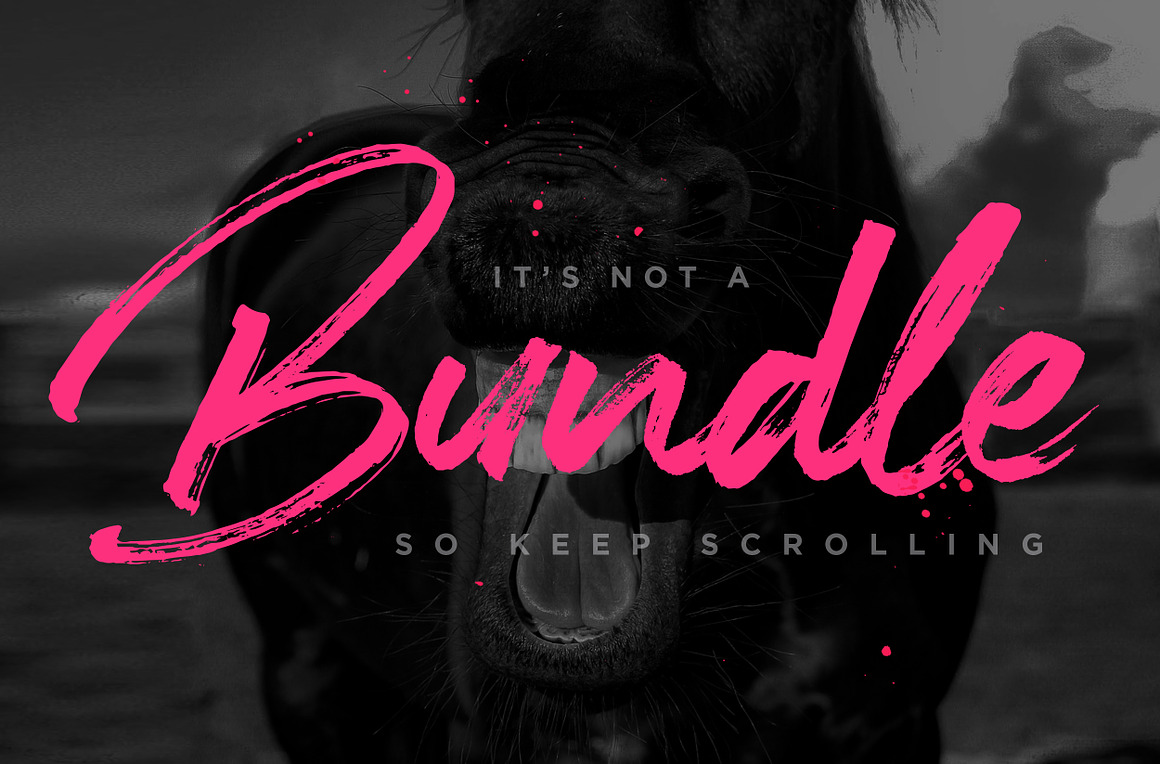
Clickbait - Logo Font
This attention-grabbing typeface is perfect for social media marketing, viral content branding, digital advertising campaigns, YouTube channel graphics, online magazine headlines, influencer marketing materials, clickable web banners, and engaging social media posts. Clickbait - Logo Font delivers irresistible magnetism in applications where instant attention capture and viral engagement are essential for breaking through digital noise and compelling audiences to click, share, and engage with content.
What makes Clickbait - Logo Font so exciting is its masterful embodiment of digital engagement psychology and viral content aesthetics through compelling typography. The font features bold, eye-catching letterforms with dynamic characteristics that command immediate attention in crowded digital environments. Each character has been strategically designed to maximize visual impact while maintaining excellent screen readability across various digital platforms and social media applications. The typeface's magnetic personality creates instant curiosity and engagement triggers, making it perfect for brands and content creators who need to cut through digital clutter and drive meaningful audience interaction.
The Clickbait - Logo Font includes powerful style variations: Regular, Bold, Condensed, and Outlined versions. This engagement-focused collection allows designers to create attention-grabbing layouts and establish viral typographic treatments that capture the essence of digital magnetism and social media success. Each style maintains the font's inherent click-worthiness while providing different impact levels for various digital marketing applications and viral content design contexts.
This magnetic typeface represents the ultimate choice for designers who understand the psychology of digital engagement in creating compelling content that drives viral success and meaningful audience interaction.